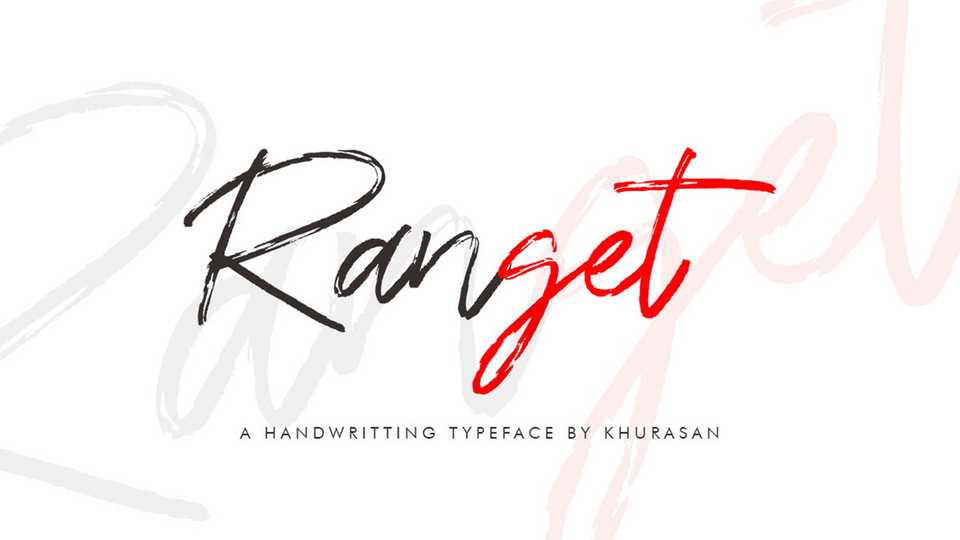
Ranget Font › Fontesk
Download Ranget font, a striking handwritten script with a quick and impressive stokes of rough brush. Perfect for logo, branding, labels, posters, t-shirt prints, social media and more.